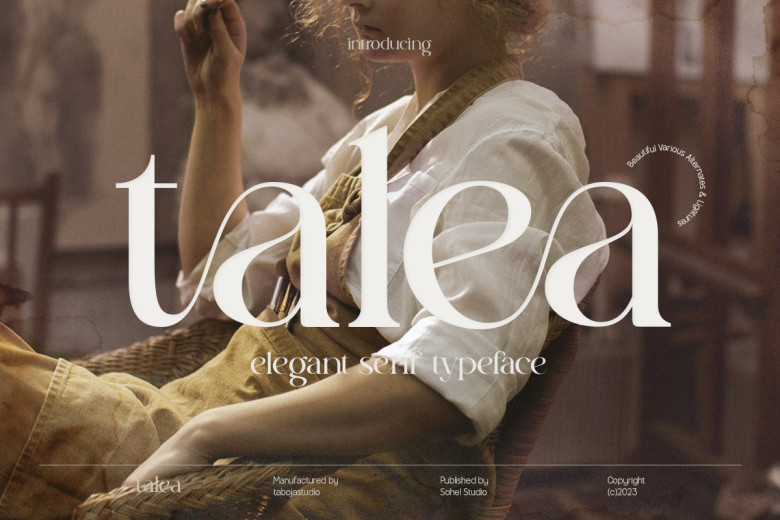
Talea Font
Talea Serif Font was designed for versatility, making it the perfect solution for many design tasks. Careful use of thin and thick strokes creates a timeless appearance making Talea an excellent choice for editorial layouts, branding initiatives and other creative ventures. Make your designs truly shine with the Elegant Display Serif Font’s wide range of possibilities.
Its precise design, stunning swash alternatives and variety of ligatures makes it the ideal partner for creative endeavors of all kinds – making sure that it remains elegant and awe-inspiring. We recommend using software which supports OpenType functions and Glyphs panels such as Adobe Illustrator, Photoshop CC, Indesign or CorelDraw in order to view and utilize its entire spectrum of Glyph variations.
Talea Serif Font